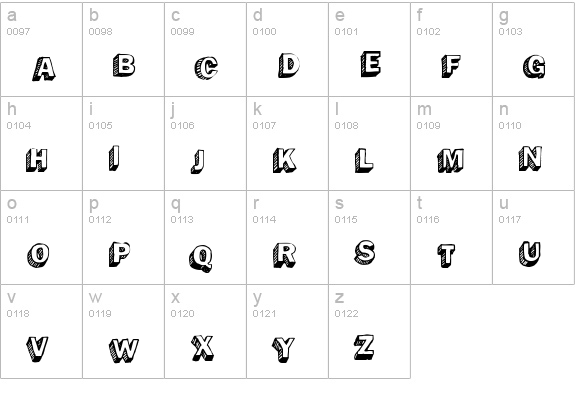
SantoDomingo-DeChile Font Details
Introducing SantoDomingo-DeChile, a stunning font that effortlessly combines elegance with a touch of modernity. This typeface is perfect for various design projects, from branding and packaging to editorial and social media graphics. With its clean lines and perfectly balanced letterforms, SantoDomingo-DeChile exudes sophistication and professionalism. Each character has been meticulously crafted to ensure legibility and visual harmony, making it a versatile choice for both print and digital applications. One of the standout features of SantoDomingo-DeChile is its versatility. It comes in multiple weights and styles, allowing you to experiment and create unique combinations that suit your design needs. Whether you're looking for a bold statement or a subtle elegance, this font has got you covered. But what truly sets SantoDomingo-DeChile apart is its accessibility. It is freely available to download at FontsMarket.com, making it a valuable resource for designers of all levels. This means that you can instantly add this remarkable font to your collection without any hassle or cost. Whether you're a professional designer or someone looking to add a touch of sophistication to your personal projects, SantoDomingo-DeChile is a font that will elevate your work to the next level. Its timeless appeal and freely available nature make it a must-have for any design enthusiast. So go ahead, download SantoDomingo-DeChile today and unlock a world of endless creativity.